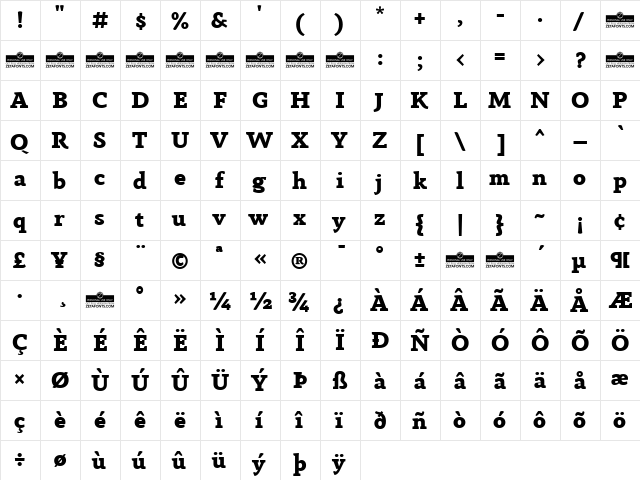
Anaphora Trial ExtraBold
| Foundry | Studio Kmzero |
| Designer | Francesco Canovaro |
Design Context for Anaphora Trial Typeface
Anaphora Trial is a composed and adaptable typeface that performs quietly and consistently across a wide range of design contexts. The heavy weight commands attention and anchors typographic hierarchies.